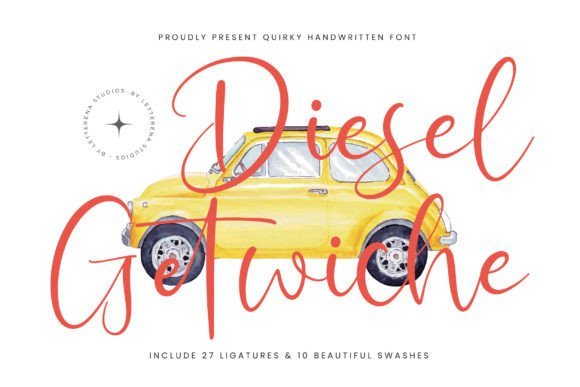
Introduction to Diesel Getwiche Font
Diesel Getwiche – Quirky Handwritten Font , from Letterena, is a Luxury Script font, suitable for any projects such as: logos, branding projects, homeware designs, product packaging, mugs, quotes, posters, shopping bags, t-shirts, book covers, name card, invitation cards, greeting cards, label, photography, watermark, special events, and all your other luxury and beautiful projects that need a Luxury Script taste.
Key Features of Diesel Getwiche Font
Why Choose Diesel Getwiche Font?
Diesel Getwiche Font offers exceptional quality and versatility, making it a valuable addition to your design toolkit. Whether you’re creating for personal projects or commercial use, Diesel Getwiche Font delivers professional results.